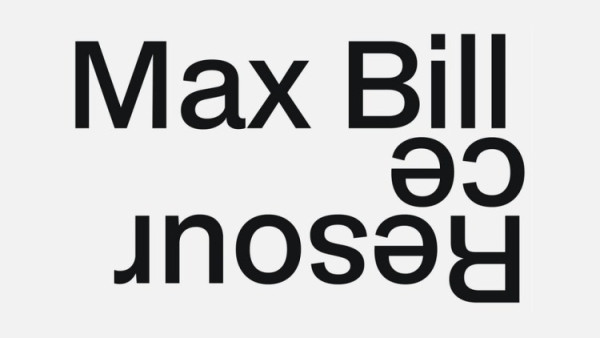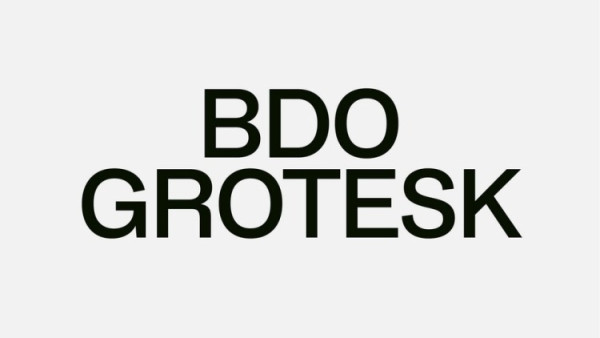
BDO Grotesk Font
BDO Grotesk Font is a versatile and functional typeface with a neutral look and well balanced and neat structure of characters.
Designed with a minimalist approach, BDO Grotesk offers a sleek and sophisticated style that is both familiar and unique. With seven weights, the font provides the flexibility to create a stunning design.
Whether you are designing a website, app or presentation, BDO Grotesk is the perfect choice for any project that requires a clean and modern aesthetic. Its simple yet striking design ensures that your message is conveyed clearly and effectively, while its minimalist look ensures that your content remains the center of attention.